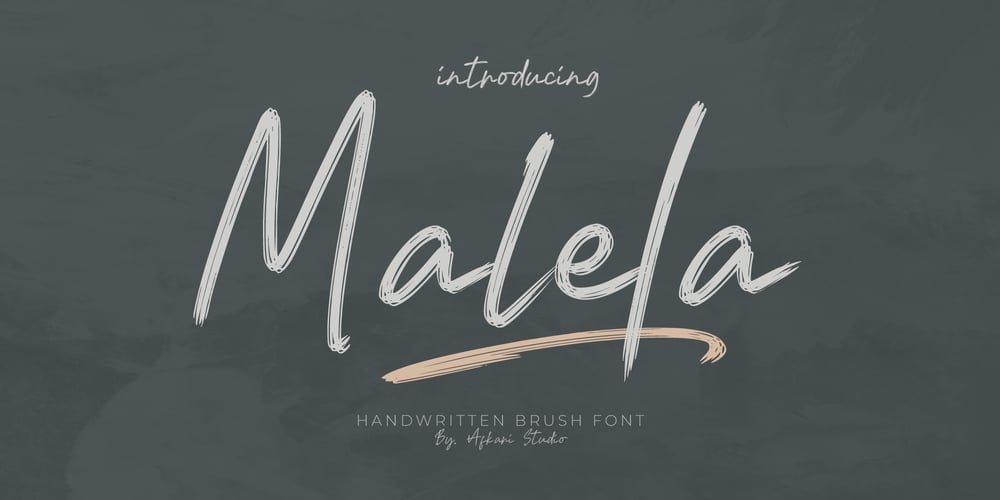
Malela Handwritten Brush Font Family was designed by Musthafa Kamal Emje and published by Afkari Studio. Malela Handwritten Brush contains 1 styles and family package options. Malela Handwritten Brush Font is a Natural Handwritten brush Font script that makes with natural line handwriting. This font is suitable for any branding of your design needs, wedding invitation, romantic project, studio brand, logo, homeware designs, product packaging, social media posts, clothing, poster tiltle, cafe/resto sign and simply as a stylish text overlay to any background image.Features;- Uppercase, Lowercase, Number, and Punctuation- Standart and Special Ligatures- Works on PC & Mac- Simple installations- Accessible in Adobe Illustrator, Adobe Photoshop, Adobe InDesign, even work on Microsoft Word- Fully accessible without additional design software.- Mültîlíñgúãl Sùppört for; ä ö ü Ä Ö Ü ß ¿ ¡ etc.Hope you enjoy our font and this font is useful for your projects!